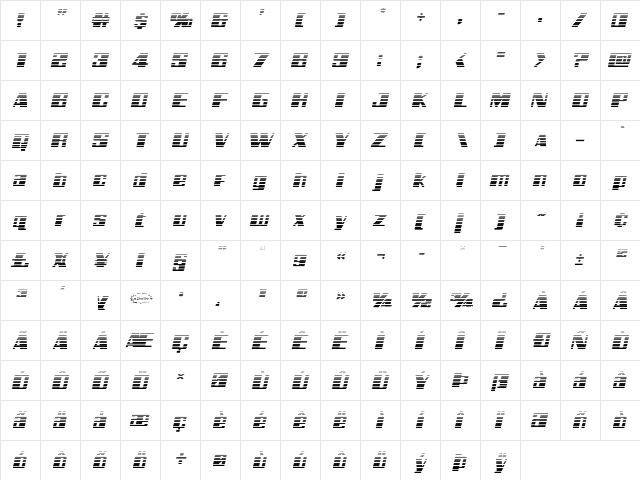
Galactic Storm Gradient Italic Italic
Design Context for Galactic Storm Gradient Italic Typeface
Galactic Storm Gradient Italic is a composed and adaptable typeface that performs quietly and consistently across a wide range of design contexts. The dynamic lean of this cut emphasises speed and emphasis in any layout.
Pro Tip: Use Galactic Storm Gradient Italic for emphasis, pull quotes, and subheadings where its slanted energy can add rhythm to the layout.